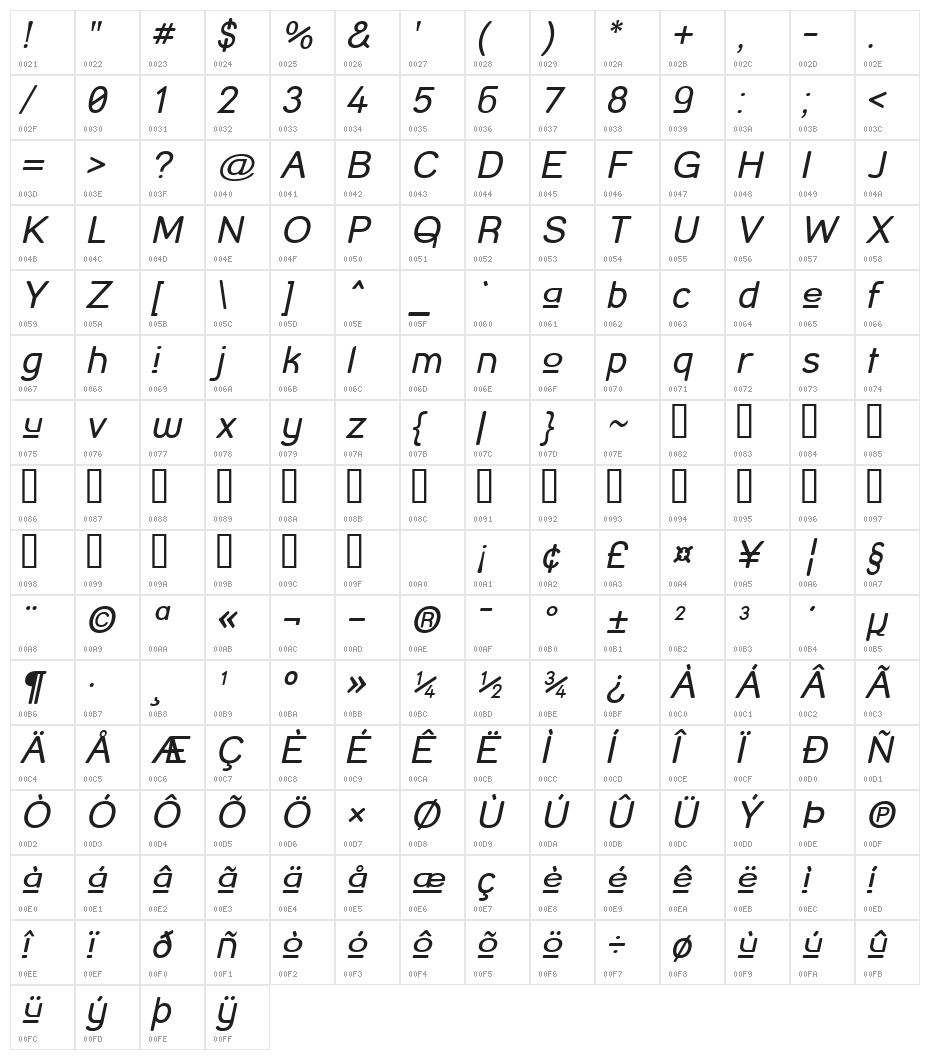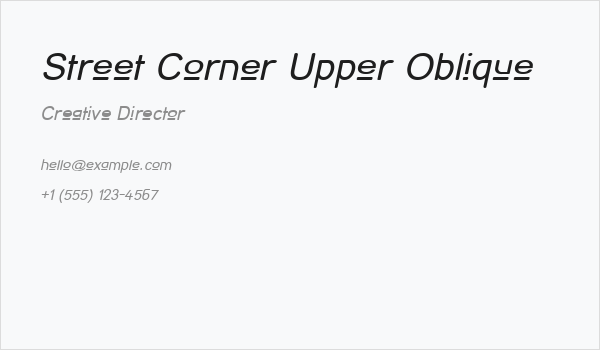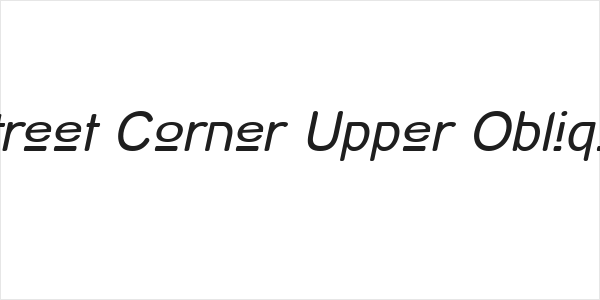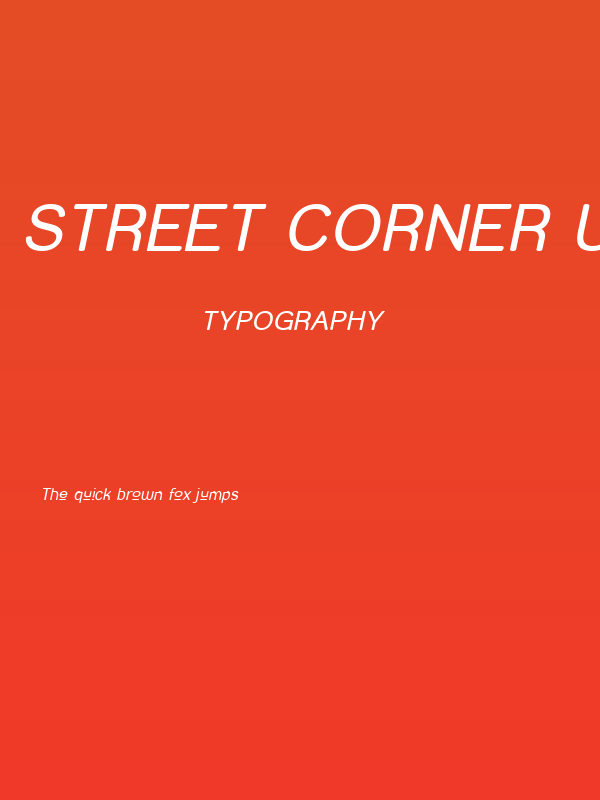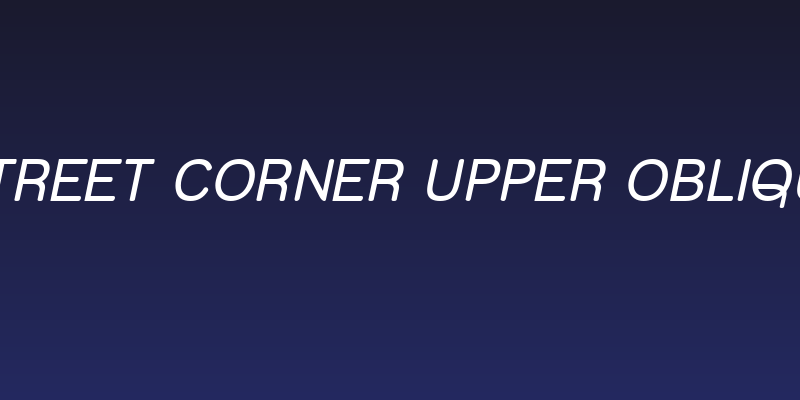
Street Corner Upper Oblique Font
Street Corner Upper Oblique Description
This font features a sleek, modern design with a distinct oblique slant, giving it a dynamic and forward-moving appearance. The characters are sans-serif, contributing to a clean and minimalist aesthetic. The strokes are consistent in thickness, providing a uniform look across all characters. The rounded edges and smooth curves add a touch of softness, balancing the overall sharpness of the oblique style. This font is highly legible, making it suitable for various applications where clarity and style are essential.